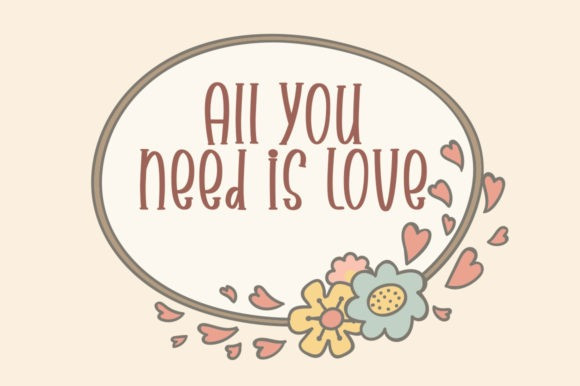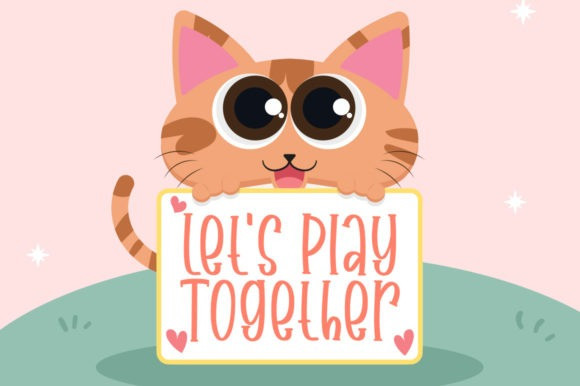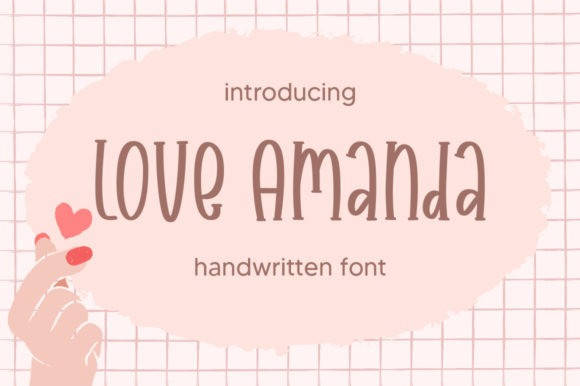
Love Amanda Font
Love Amanda Font is a quirky and playful serif font. It can be used for various purposes such as logos, headings, t-shirts, letterheads, signage, labels, news, posters, badges and so much more.